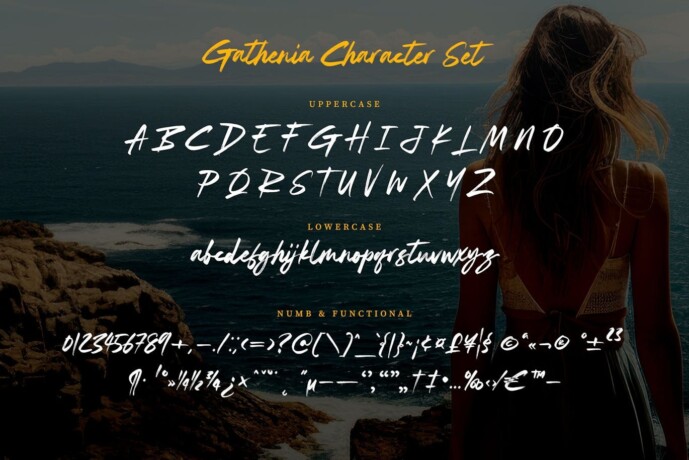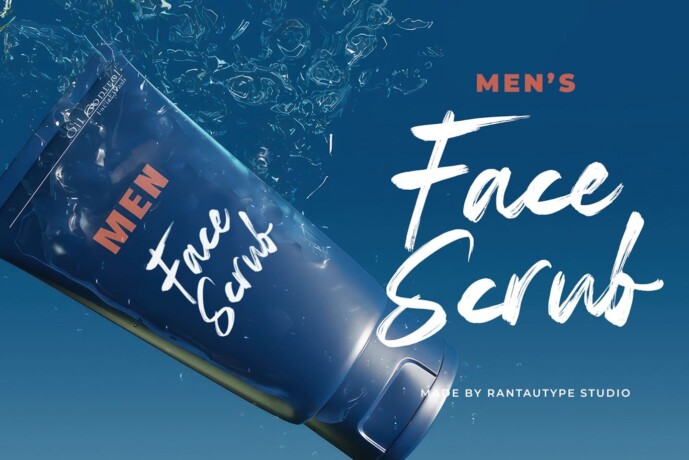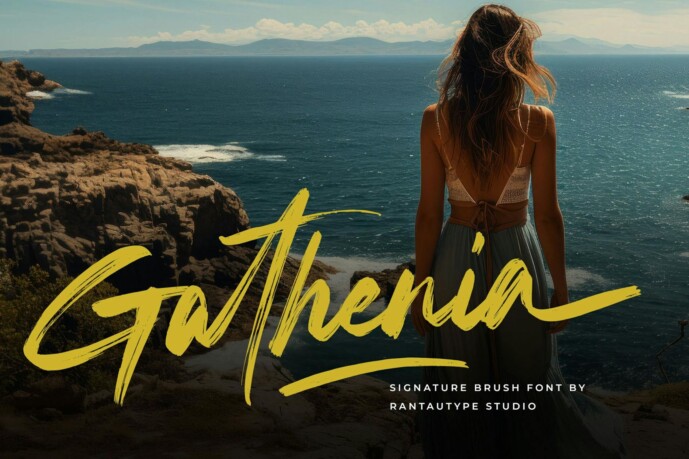
Gathenia Font
Gathenia Font is a bold and elegant signature with quick strokes and authentic dry textures. Gathenia comes with a strong and safe font to help you complete a design project. Gathenia are also offered with alternative, ligature and swasahes and take already support multilingual support.
Gathenia is a perfect choice for any creative, chic and lifestyle design such as logos, advertisements, watermark on photography, stationery, branding project, display and magazine, invitation, corporate branding, product design, label , commercial project and any other project with a hand-written taste.